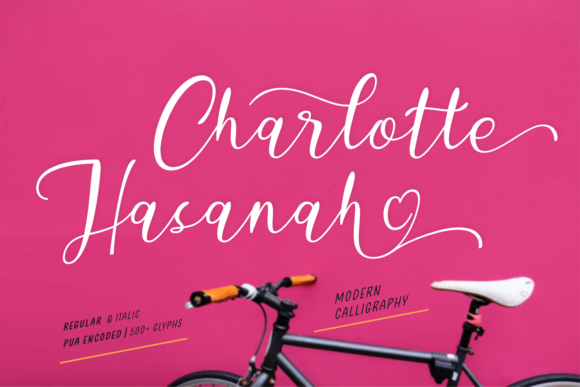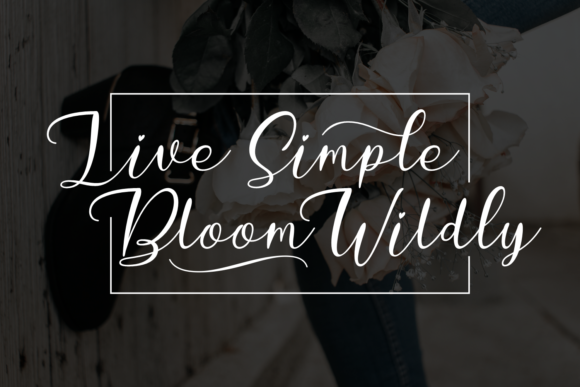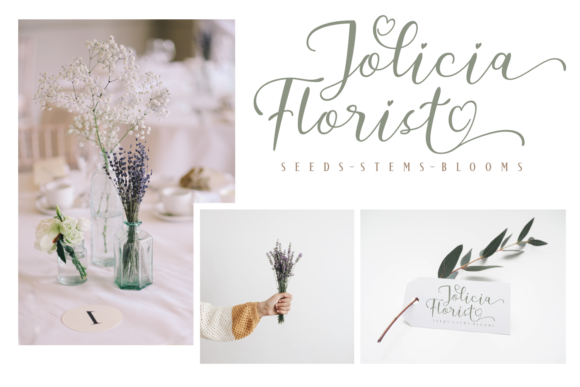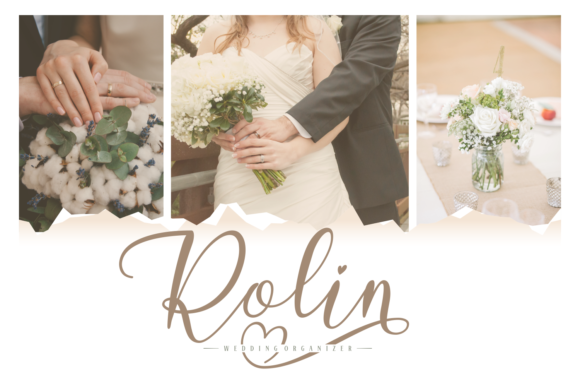
Charlotte Hasanah Font
About Charlotte Hasanah Font
Charlotte Hasanah is a charming script font that is great for many projects. Fall in love with its romantic feel!